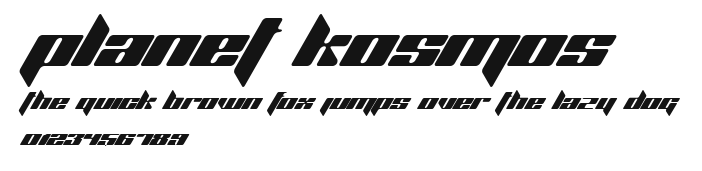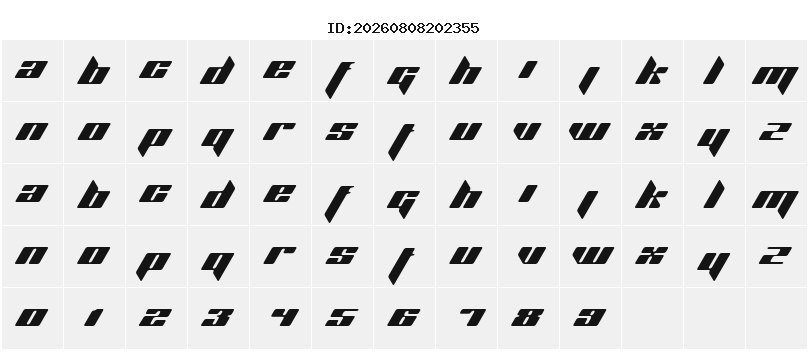
• Font Name: Planet Kosmos
• Full Font Name: Planet Kosmos
Planet Kosmos.ttf is a modern, elegant sans-serif font designed for ultimate readability and visual harmony. Perfect for branding, headlines, web design, and print materials.